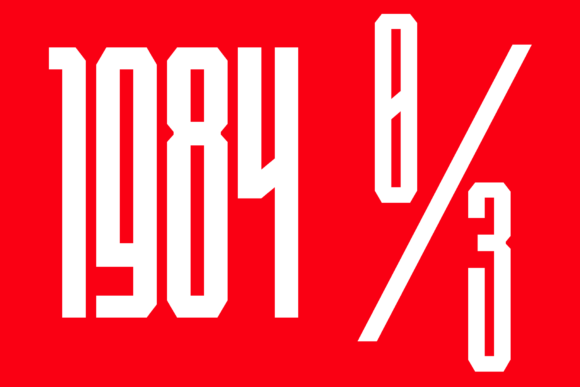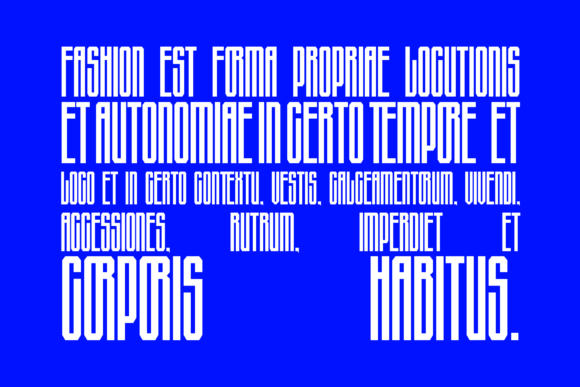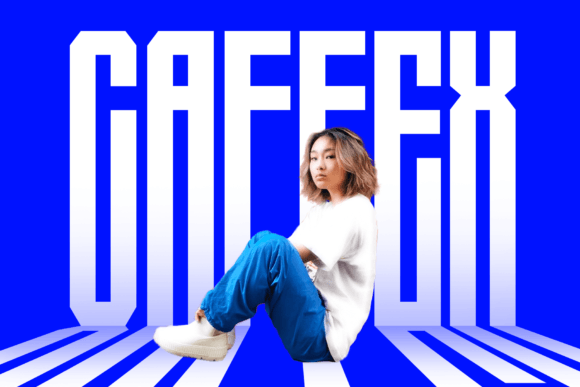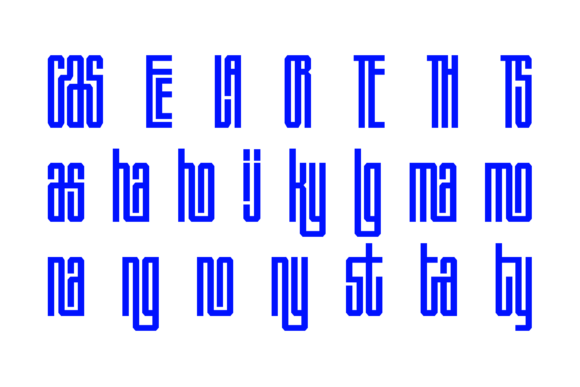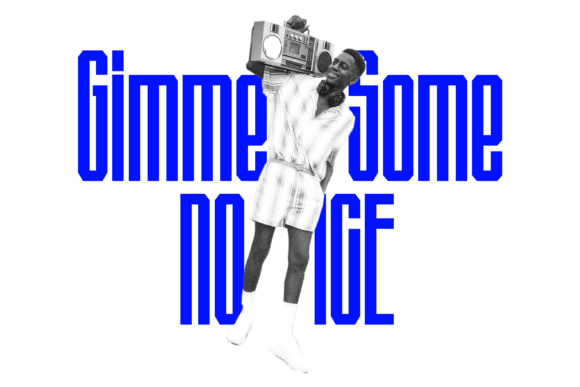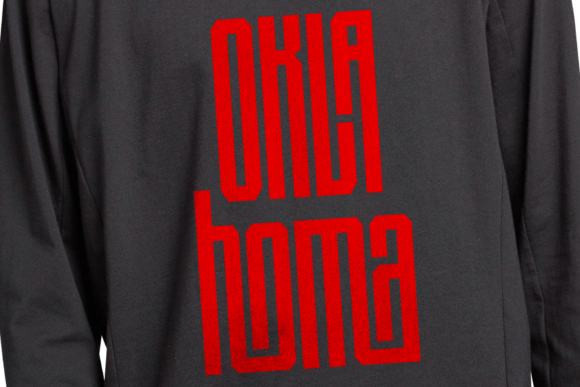
Cas Layeer Max Font: Unleash the Power of Sporty and Futuristic Typography
In the world of typography, fonts play a crucial role in conveying the tone and personality of a design. For designers and crafters looking to add a bold and dynamic touch to their projects, Cas Layeer Max font is an excellent choice. This sporty yet futuristic display font is designed to make a statement, and in this article, we’ll explore its features, benefits, and uses.
The Inspiration Behind Cas Layeer Max
Cas Layeer Max font is inspired by the free and offensive street culture, which is reflected in its massive shape. The font’s design is a perfect blend of sportiness and futurism, making it ideal for projects that require a strong and confident look. The font’s creator aimed to design a typeface that exudes energy, dynamism, and a sense of movement, and they have succeeded in doing so.
Key Features of Cas Layeer Max Font
So, what makes Cas Layeer Max font stand out from the rest? Here are some of its key features:
- Sporty and Futuristic Design: Cas Layeer Max font boasts a unique and bold design that is perfect for sports-related projects, futuristic designs, and any project that requires a dynamic look.
- Massive Shape: The font’s massive shape gives it a strong and confident appearance, making it perfect for headlines, titles, and other display text.
- High Readability: Despite its bold design, Cas Layeer Max font is highly readable, even at smaller sizes.
- Versatility: This font can be used for a wide range of projects, from posters and flyers to digital graphics and branding.
Benefits of Using Cas Layeer Max Font
Using Cas Layeer Max font can bring numerous benefits to your designs. Here are some of the advantages of using this font:
- Adds Character to Your Designs: Cas Layeer Max font can add a unique and bold touch to your designs, setting them apart from others.
- Conveys Confidence and Strength: The font’s strong and confident appearance can help convey the message of confidence and strength in your designs.
- Perfect for Sports and Futuristic Projects: The font’s sporty and futuristic design makes it an excellent choice for sports-related projects and futuristic designs.
- Easy to Read: Despite its bold design, Cas Layeer Max font is easy to read, making it perfect for body text and other smaller text.
Tips for Using Cas Layeer Max Font
To get the most out of Cas Layeer Max font, here are some tips to keep in mind:
- Use it for Headlines and Titles: Cas Layeer Max font is perfect for headlines and titles, where its bold design can make a statement.
- Pair it with Other Fonts: You can pair Cas Layeer Max font with other fonts to create a unique and interesting contrast.
- Experiment with Different Sizes: Don’t be afraid to experiment with different sizes to find the perfect balance for your design.
- Use it for Digital and Print Projects: Cas Layeer Max font can be used for both digital and print projects, making it a versatile addition to your font library.
In conclusion, Cas Layeer Max font is an excellent choice for designers and crafters looking to add a bold and dynamic touch to their projects. Its sporty and futuristic design, massive shape, and high readability make it perfect for a wide range of projects. By following the tips outlined in this article, you can get the most out of Cas Layeer Max font and create stunning designs that stand out from the crowd.
Whether you’re working on a sports-related project, a futuristic design, or simply looking for a font that can add character to your designs, Cas Layeer Max font is definitely worth considering. So, go ahead and give it a try – you won’t be disappointed!